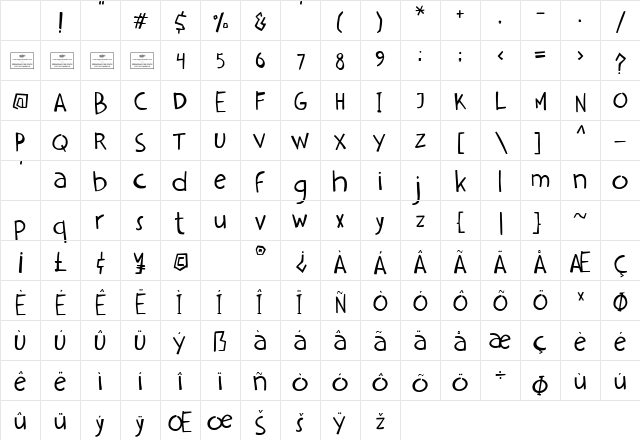
Complete Amberly Regular glyph index. Displaying only characters natively supported by Amberly Regular font.
Amberly is a composed and adaptable typeface that performs quietly and consistently across a wide range of design contexts.